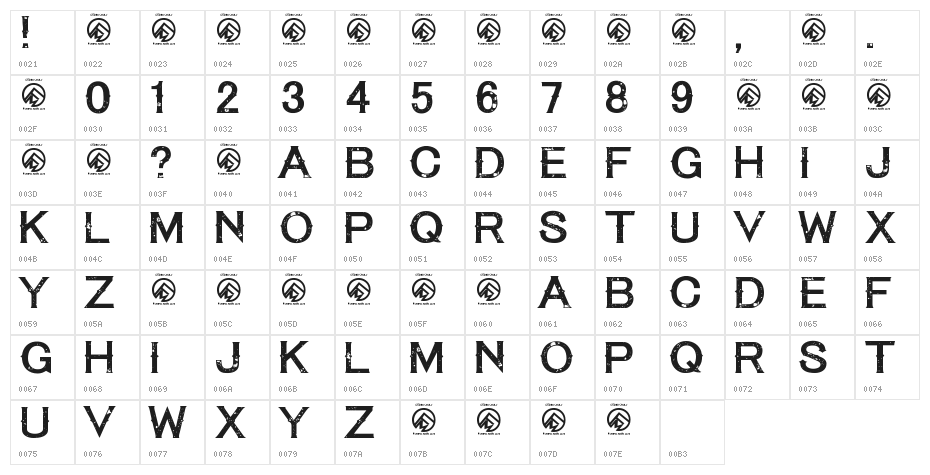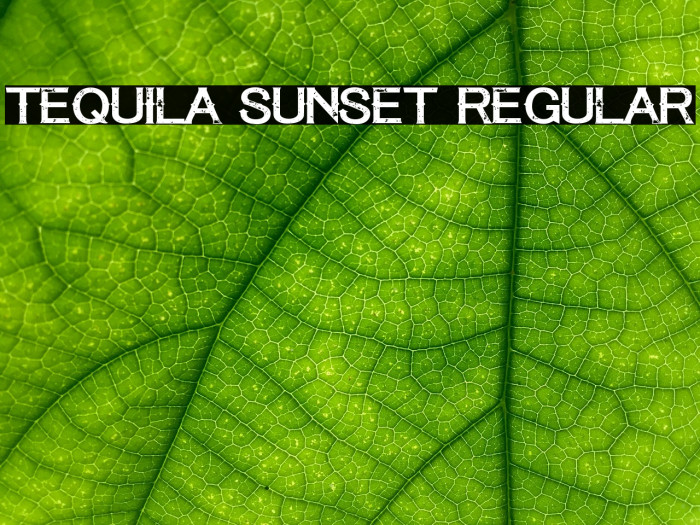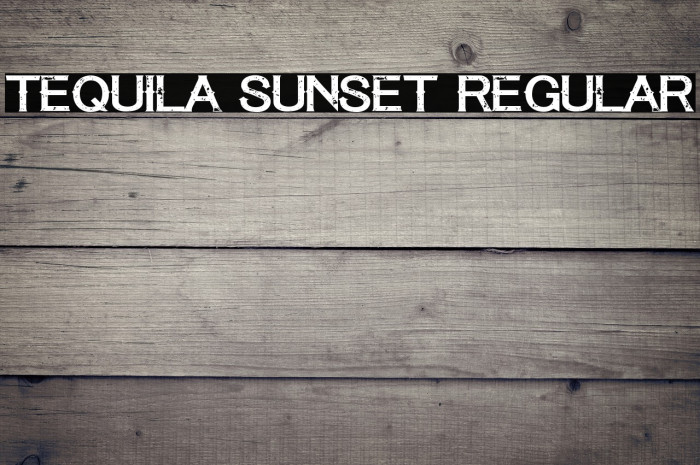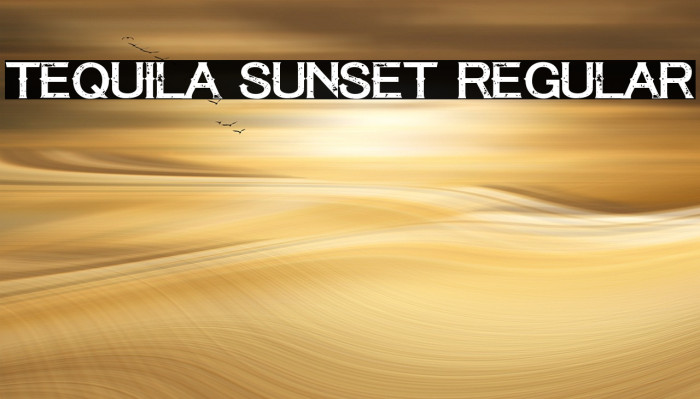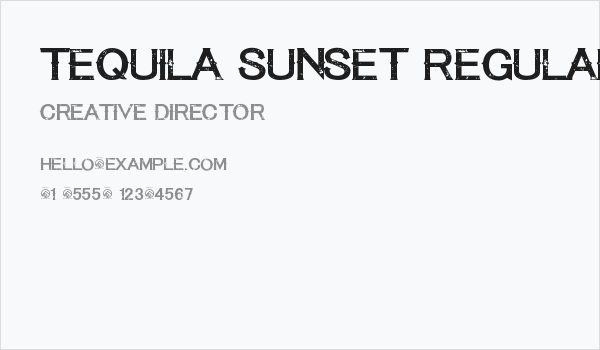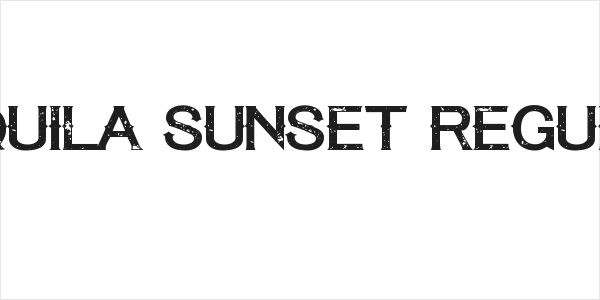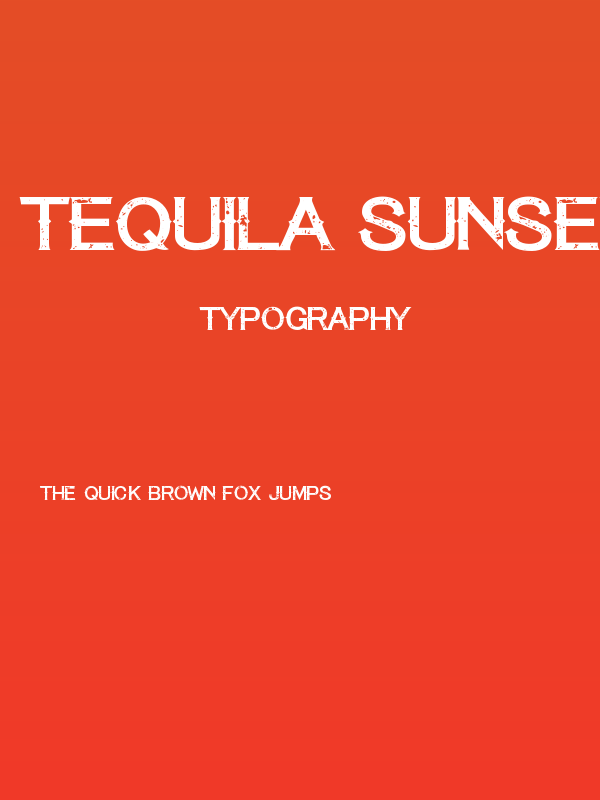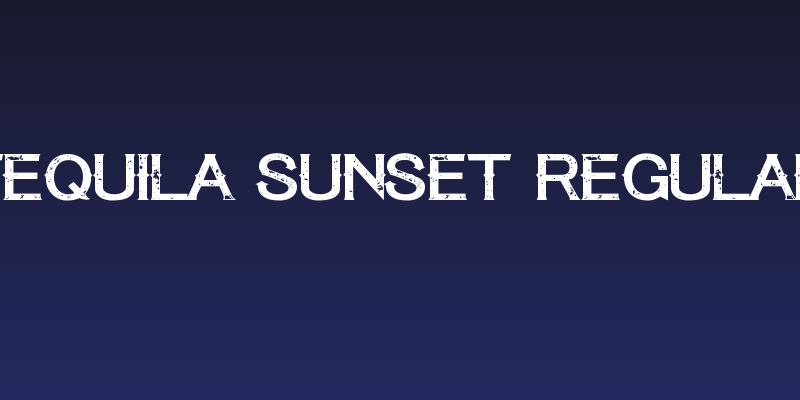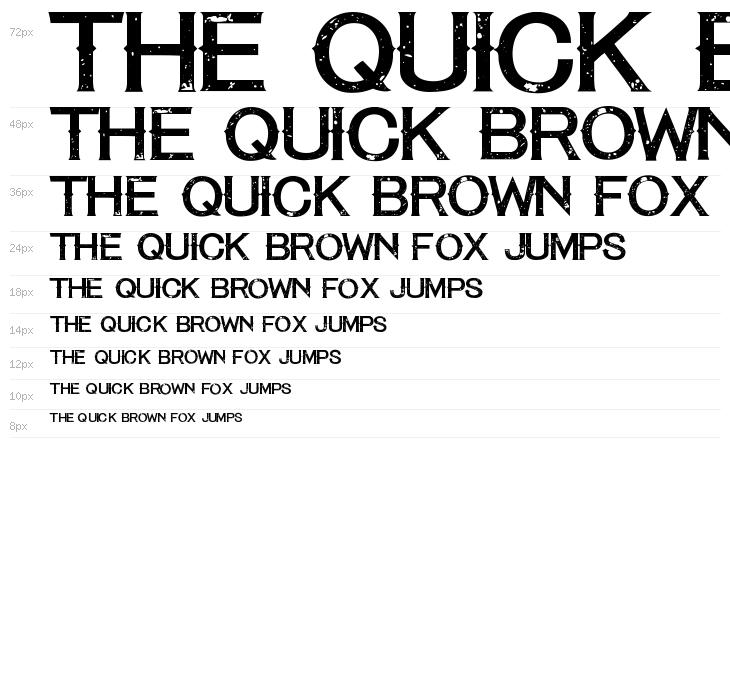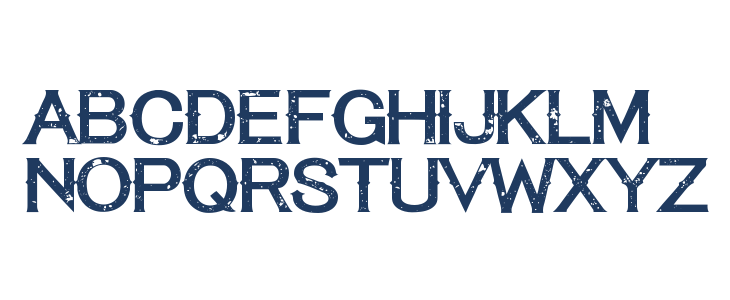
Tequila Sunset Regular Font
Tequila Sunset Regular Description
This font features a bold and distressed style, giving it a rugged and vintage appearance. The uppercase letters are prominent and slightly condensed, with a textured look that suggests wear and tear, adding character and a sense of history. The numbers and special characters follow the same design, maintaining consistency throughout. This font is ideal for projects that require a strong, impactful presence with a touch of nostalgia.
| Proposed Projects | Ideal for vintage-themed posters, branding for rustic or artisanal products, and any design needing a bold, textured statement. |